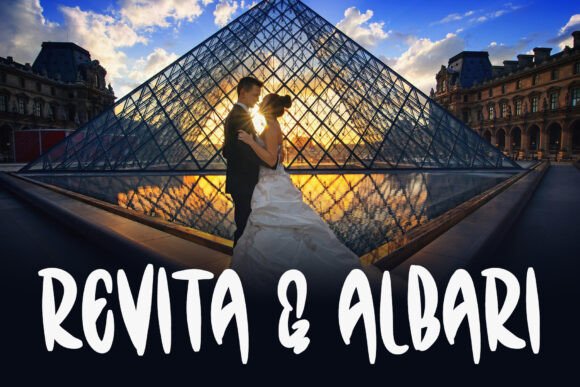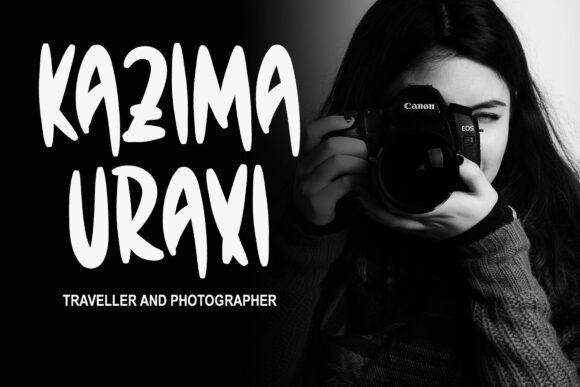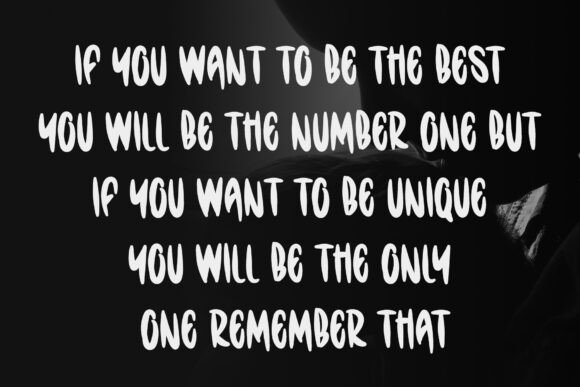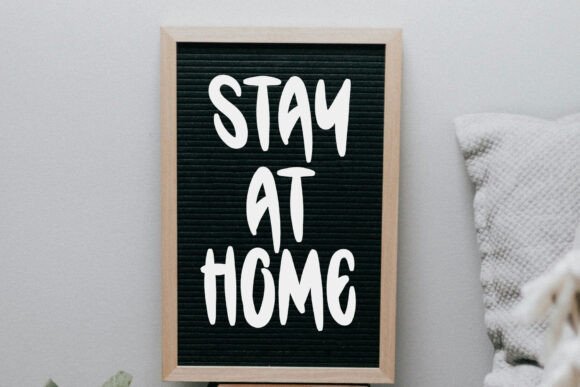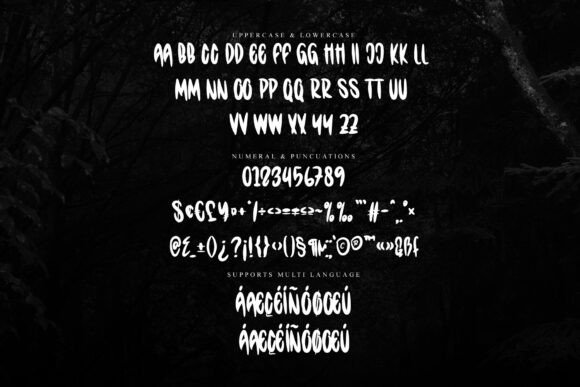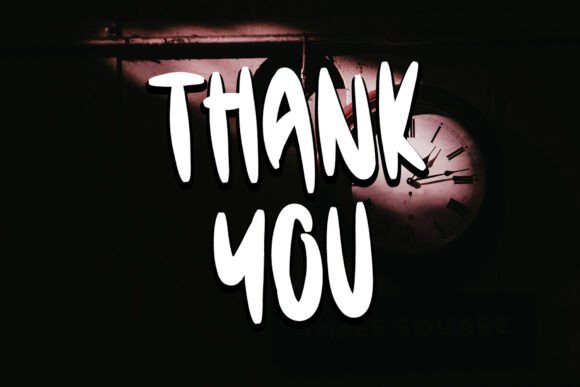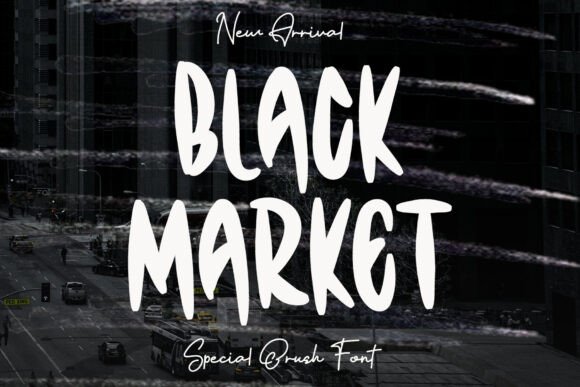
Unleash Your Creativity with Black Market Font: A Stunning Display Font for Magazines and Crafts
Are you a designer, crafter, or DIY enthusiast looking for a unique and captivating font to elevate your projects? Look no further than the Black Market Font, a beautiful display font that’s perfect for creating stunning magazine layouts, craft designs, and more. In this article, we’ll dive into the world of Black Market Font, exploring its features, benefits, and uses, as well as provide tips on how to make the most of this incredible font.
What is Black Market Font?
Black Market Font is a gorgeous display font designed to add a touch of elegance and sophistication to your designs. With its bold, eye-catching letters, this font is ideal for creating attention-grabbing headlines, titles, and captions for magazines, crafts, and other creative projects. Whether you’re working on a fashion magazine, a DIY tutorial, or a handmade craft, Black Market Font is the perfect choice.
Key Features of Black Market Font
- Unique and stylish design: Black Market Font boasts a distinctive, hand-crafted design that’s sure to make your projects stand out.
- Perfect for display text: With its bold and eye-catching letters, this font is optimized for display text, making it ideal for headlines, titles, and captions.
- High-quality and versatile: Black Market Font is a high-quality font that’s versatile enough to be used in a wide range of projects, from magazines and crafts to posters and social media graphics.
- Easily customizable: With its wide range of font styles and sizes, Black Market Font can be easily customized to fit your project’s specific needs.
Benefits of Using Black Market Font
So, why choose Black Market Font for your projects? Here are just a few benefits of using this amazing font:
- Adds visual impact: With its bold and eye-catching design, Black Market Font is guaranteed to add visual impact to your projects, drawing the viewer’s attention and making your content more engaging.
- Enhances creativity: Black Market Font’s unique and stylish design will inspire your creativity, helping you to come up with fresh and innovative ideas for your projects.
- Saves time: With Black Market Font, you can create stunning designs in no time, thanks to its high-quality and versatile design.
- Perfect for professionals and hobbyists: Whether you’re a professional designer or a DIY enthusiast, Black Market Font is the perfect choice for anyone looking to create stunning designs.
How to Use Black Market Font
In conclusion, Black Market Font is a stunning display font that’s perfect for designers, crafters, and DIY enthusiasts looking to add a touch of elegance and sophistication to their projects. With its unique and stylish design, high-quality and versatility, and ease of use, Black Market Font is the perfect choice for anyone looking to create spectacular designs. So why wait? Add Black Market Font to your fonts library today and start creating!